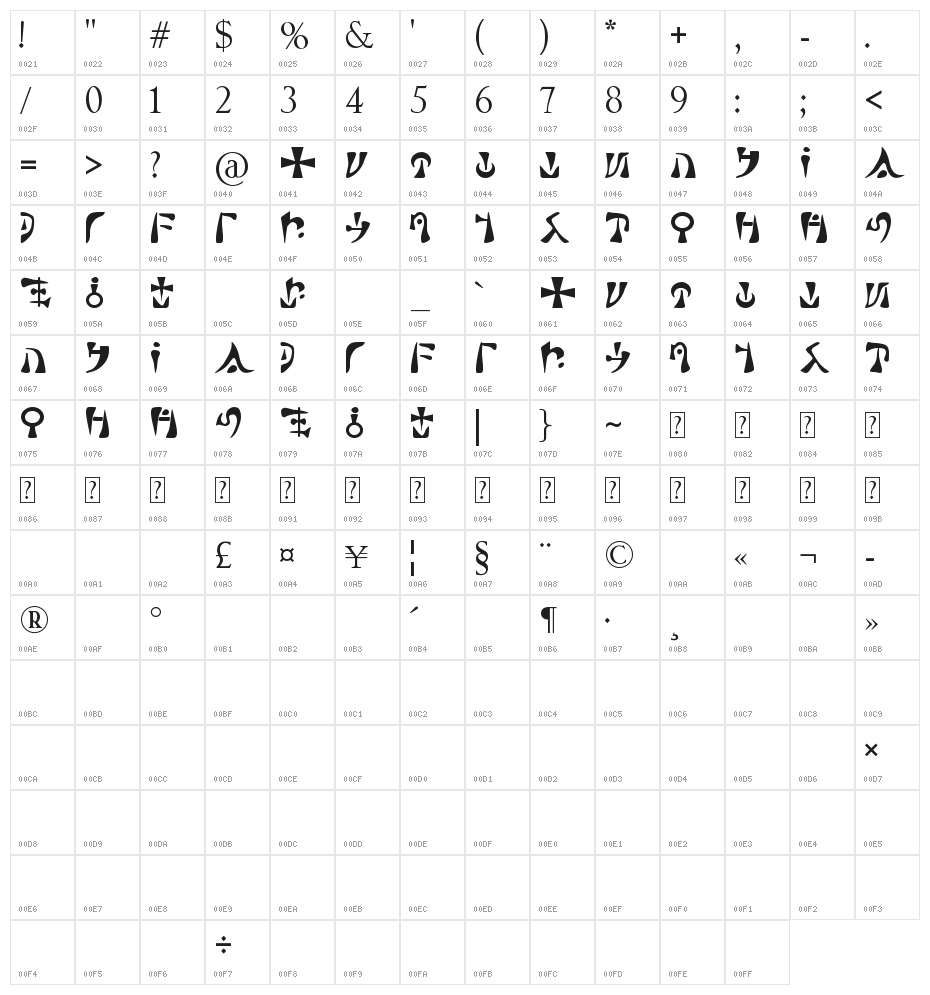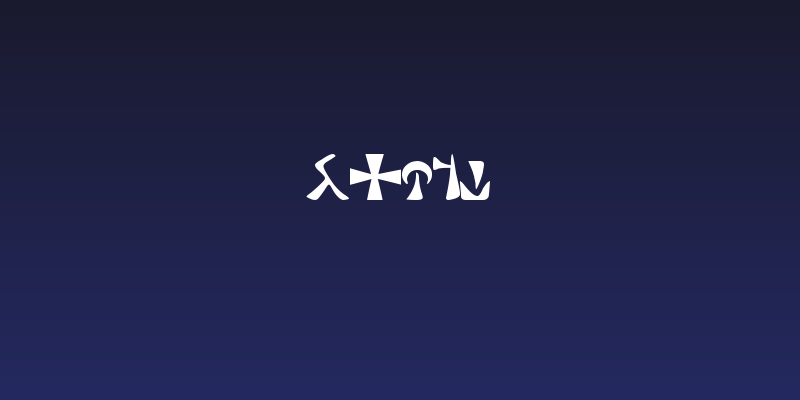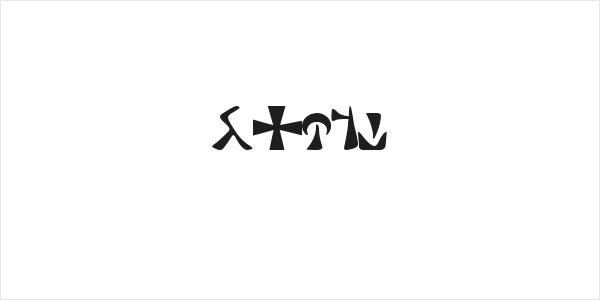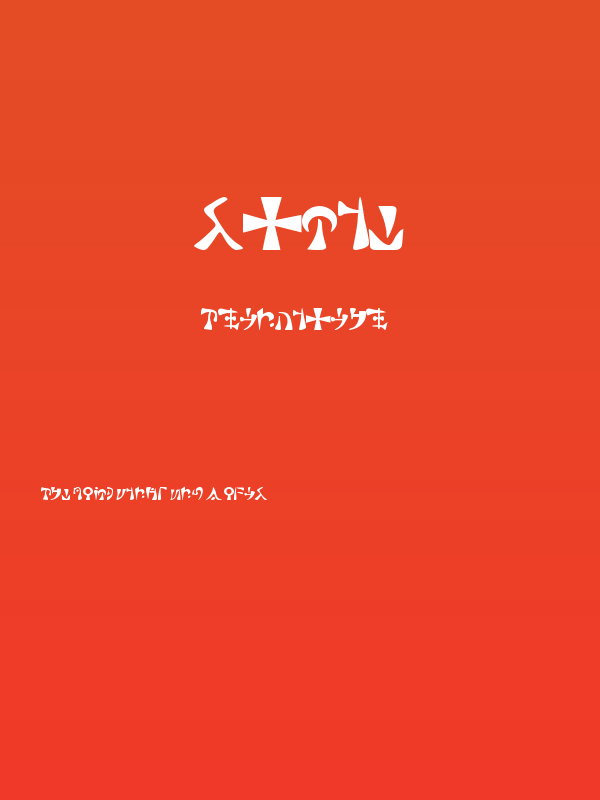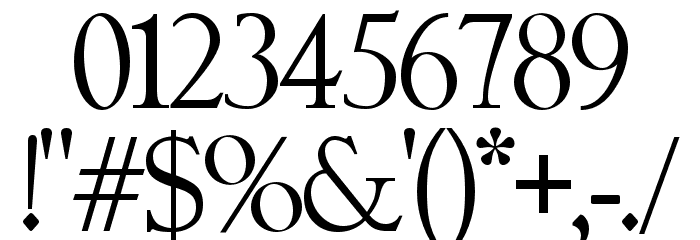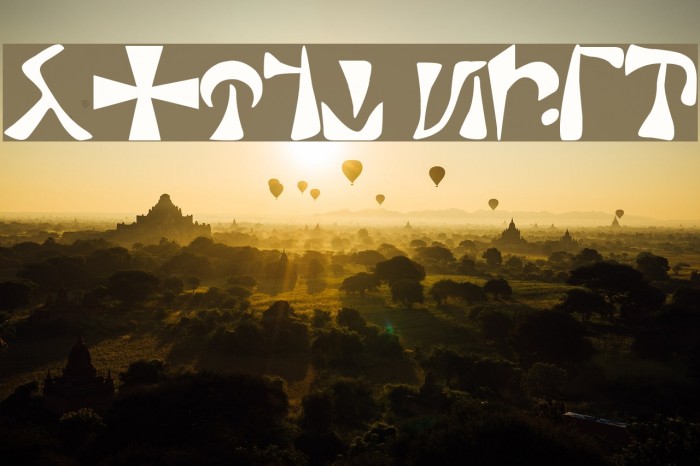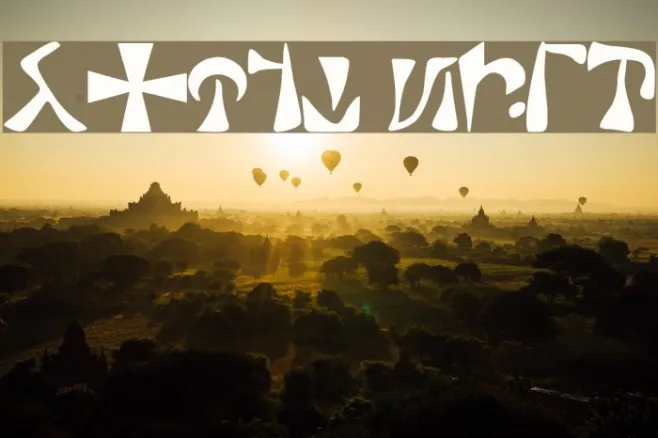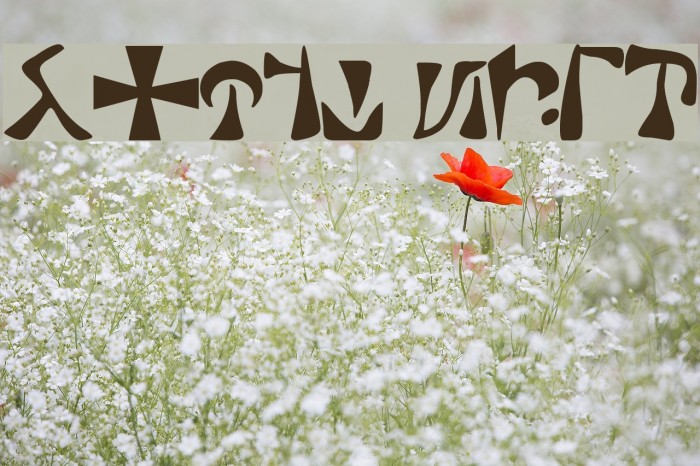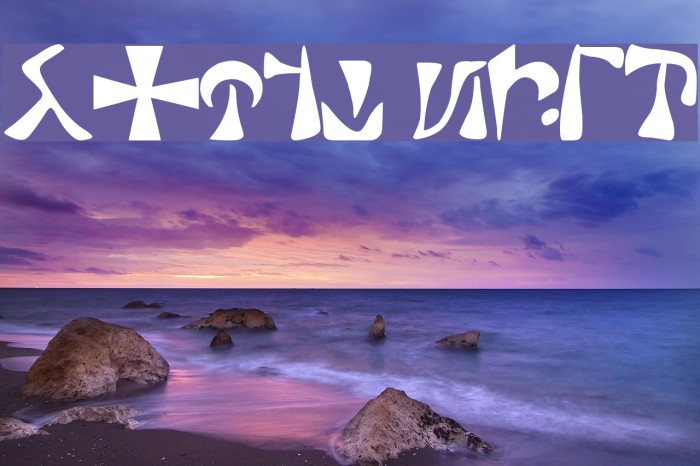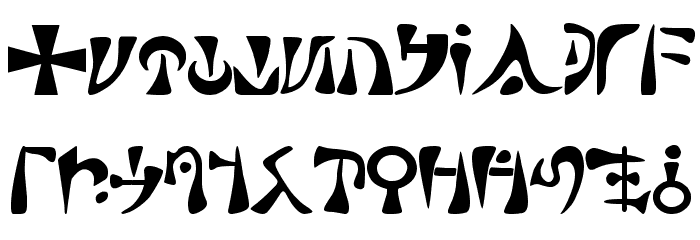
Sacre Font
Sacre Description
This font features a unique blend of modern and ancient design elements, characterized by its bold and artistic strokes. The characters exhibit a high level of contrast with thick and thin lines, creating a dynamic visual rhythm. The uppercase letters are particularly distinctive, with an almost calligraphic flair that suggests a sense of movement and fluidity. The numerals are elegantly styled, maintaining the overall aesthetic with their graceful curves and sharp angles. Special characters are thoughtfully designed to complement the alphabet, enhancing the font's versatility. This font's artistic nature makes it ideal for creative projects that require a touch of sophistication and originality.
| Overall Style | Artistic, Modern |
| Proposed Projects | Ideal for branding, posters, album covers, and artistic projects. |